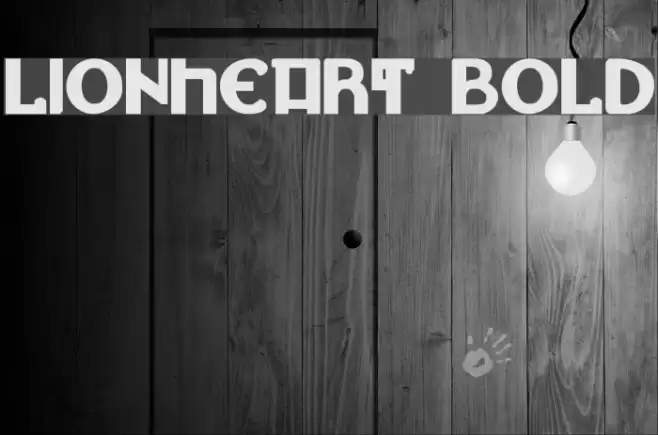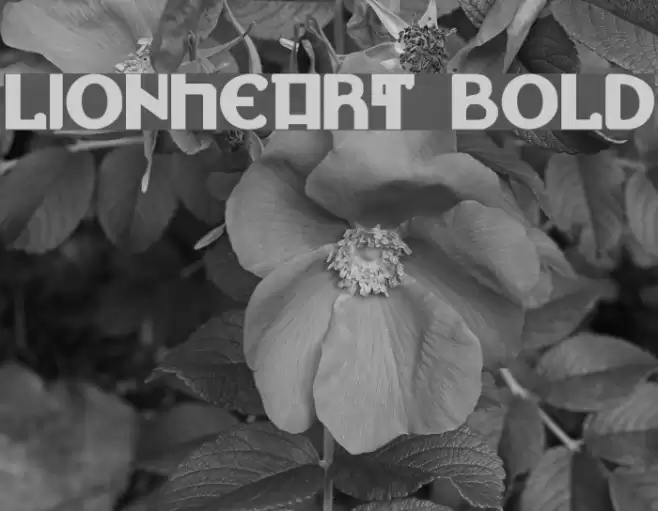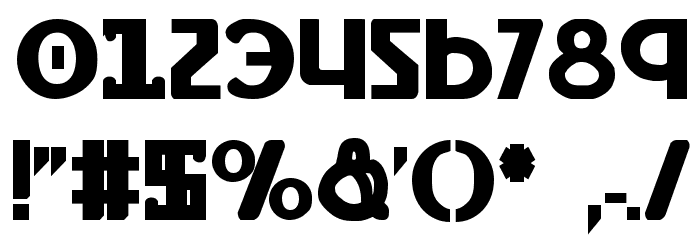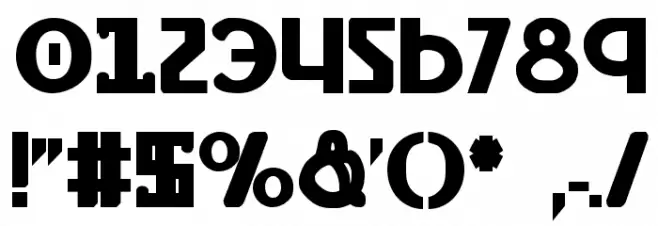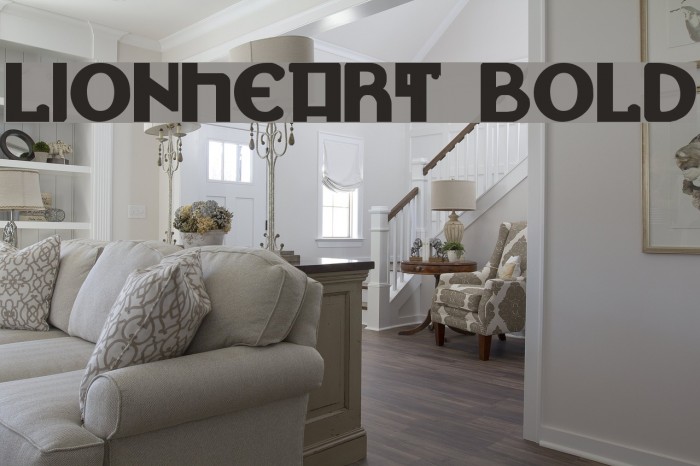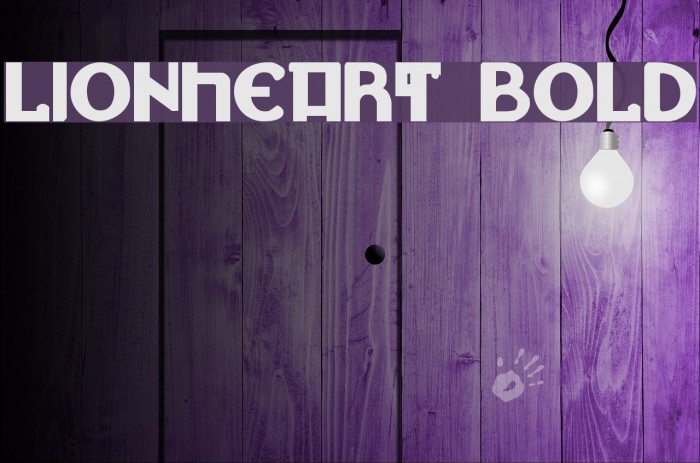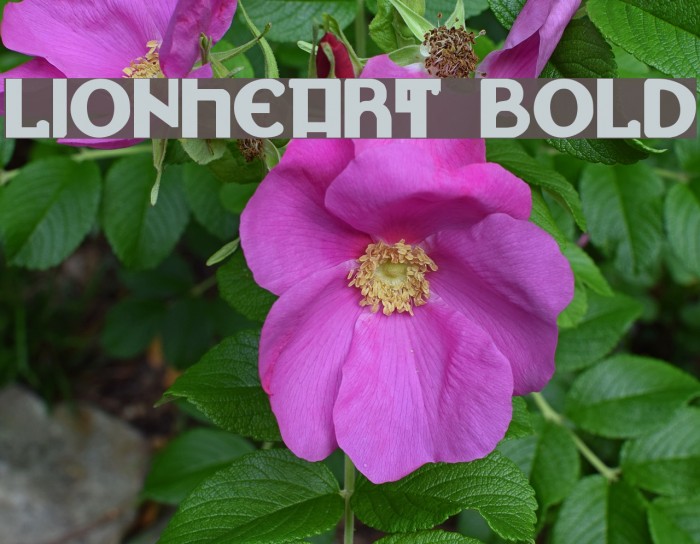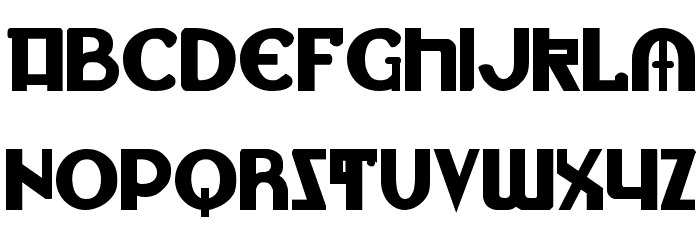
Lionheart Bold Font
Lionheart Bold Description
This font features a bold and striking design with a modern and geometric aesthetic. The characters are constructed with thick, uniform strokes, giving them a strong presence. The uppercase letters exhibit unique angular cuts and curves, adding a distinctive flair. The lowercase letters maintain the boldness while offering a slightly more rounded appearance. Numbers and special characters are consistent with the overall style, ensuring a cohesive look. The font's boldness and geometric nature make it ideal for impactful designs.
A bold, geometric font with unique angular cuts and curves from Valentine's Day fonts.
- Proposed Projects: Ideal for branding, posters, headlines, and any design requiring a strong visual impact.